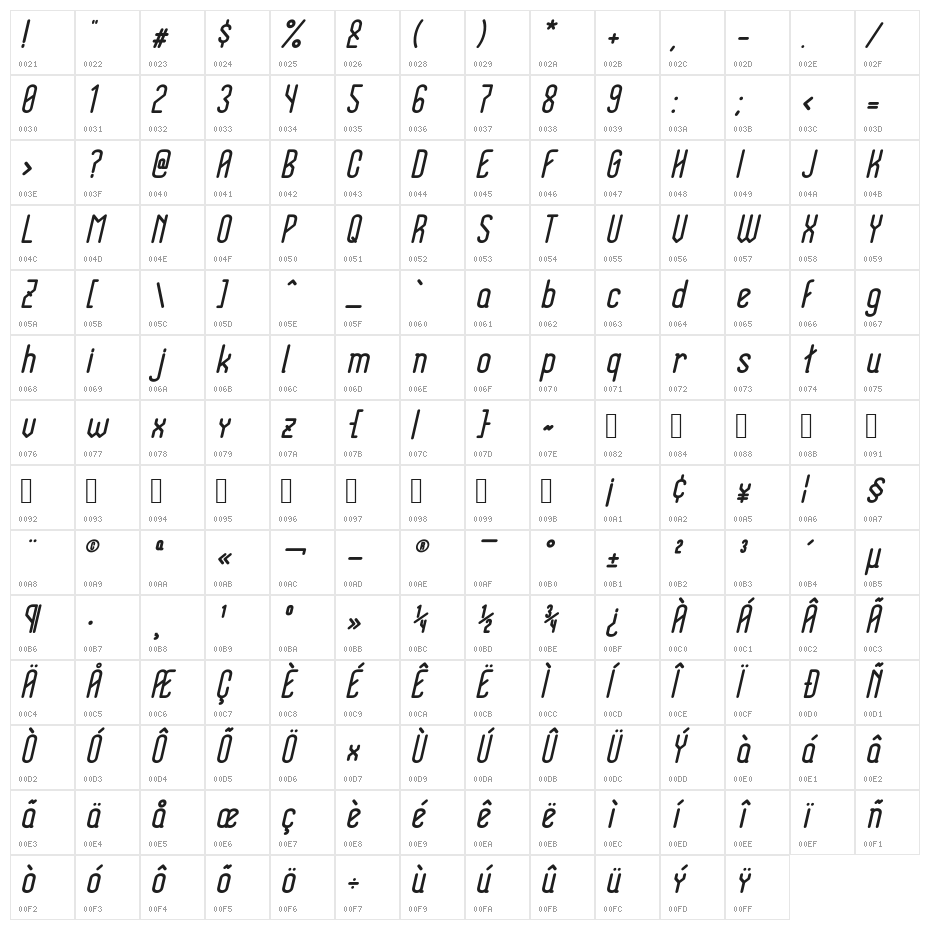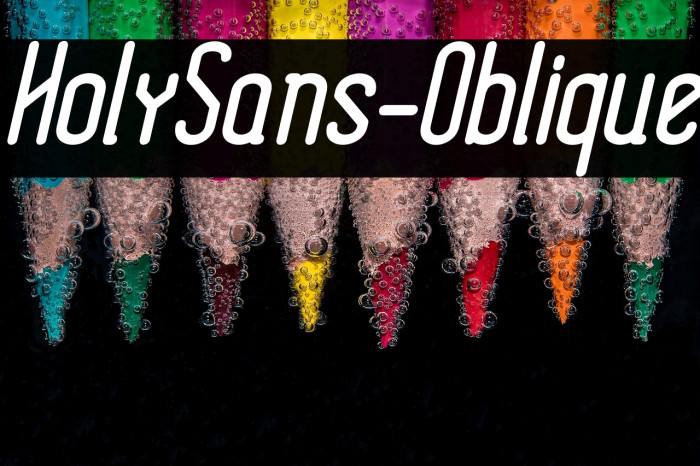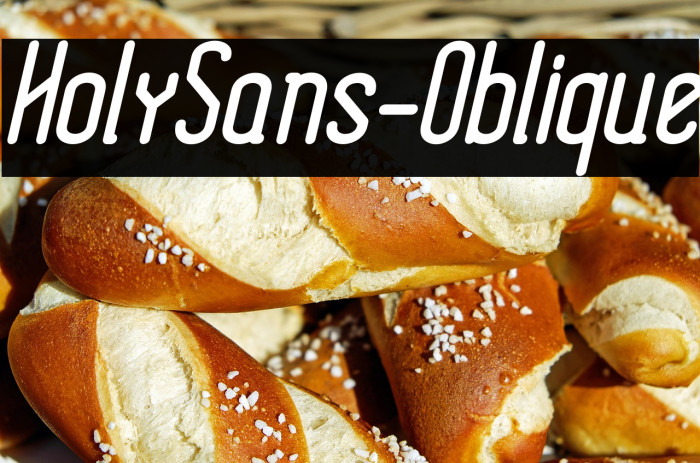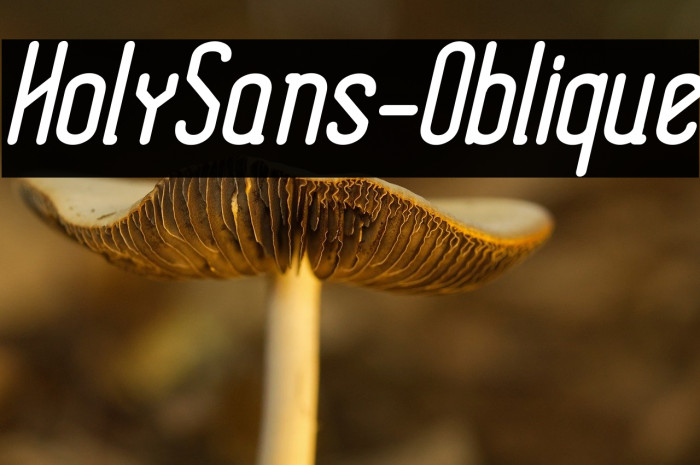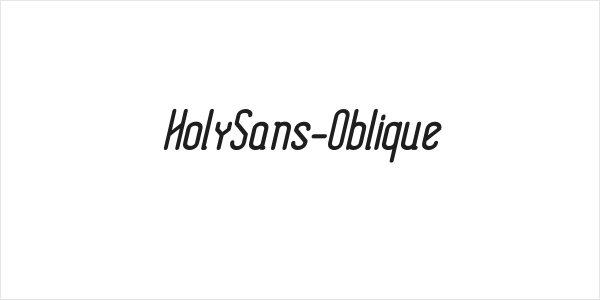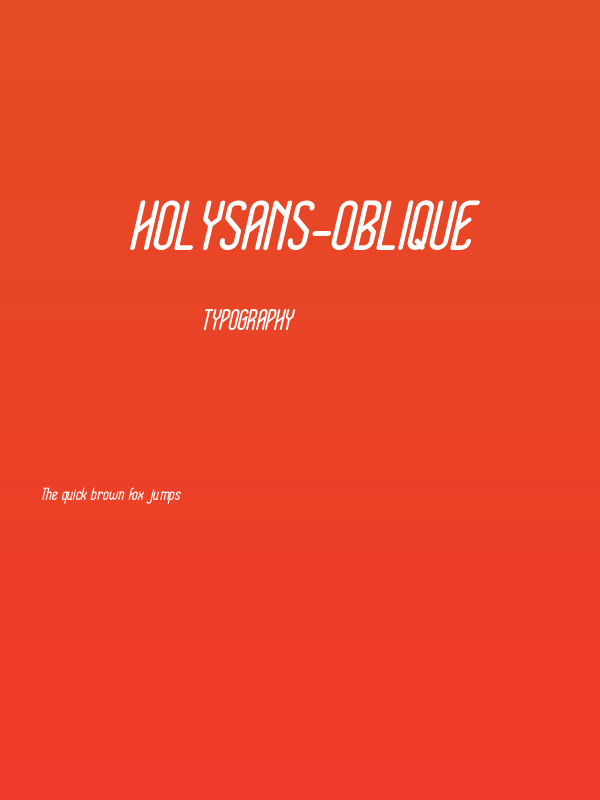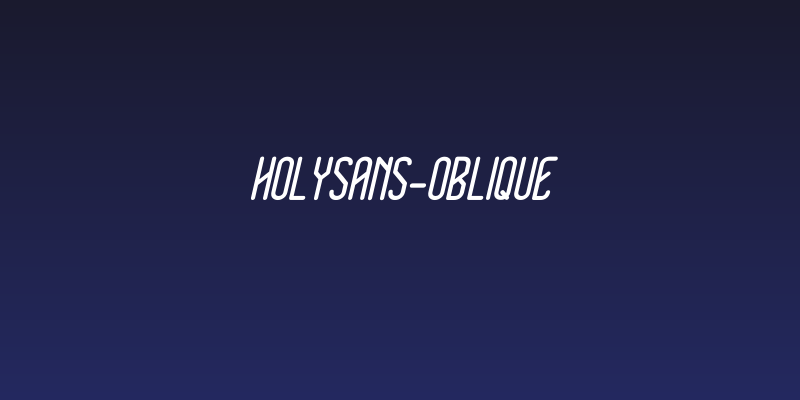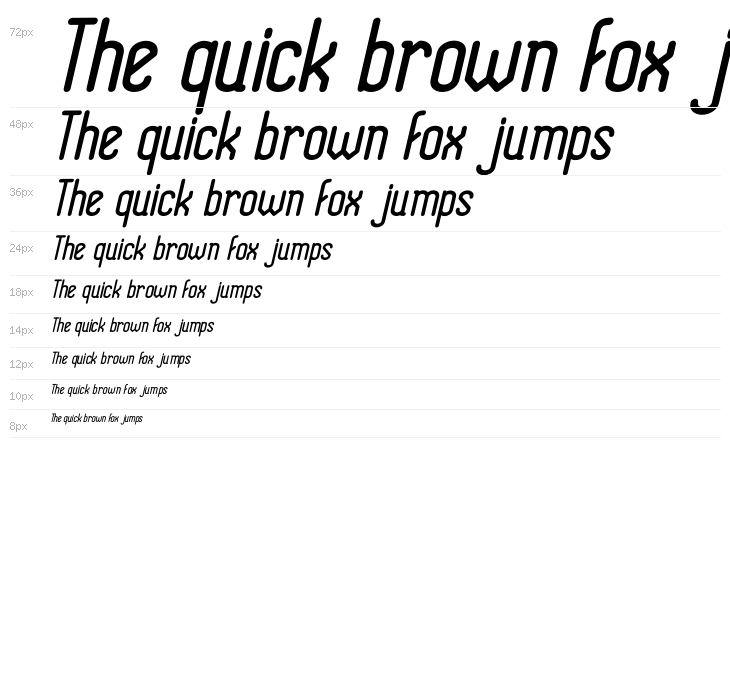
HolySans-Oblique Font
HolySans-Oblique Description
This font features a modern, oblique style with smooth, rounded edges and a consistent stroke width. The letters are slightly slanted, giving a dynamic and forward-moving appearance. The uppercase and lowercase characters maintain a uniform height, contributing to a clean and cohesive look. The numerals and special characters are designed to match the overall aesthetic, ensuring versatility across various applications. The font's simplicity and clarity make it highly legible, even at smaller sizes, while its unique slant adds a touch of personality.
| Use Case | Headlines, Logos, Digital media |
| Proposed Projects | Ideal for branding, advertising, and digital media projects where a modern and dynamic look is desired. |